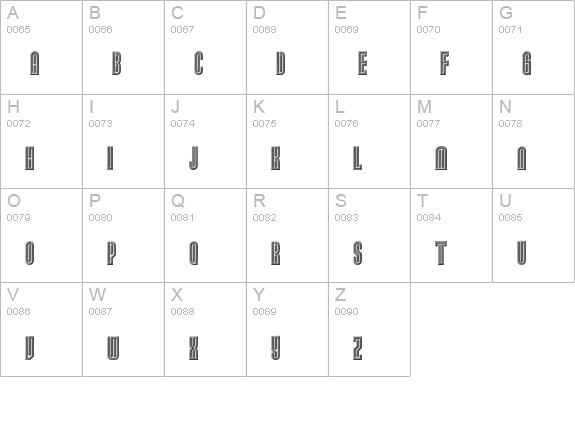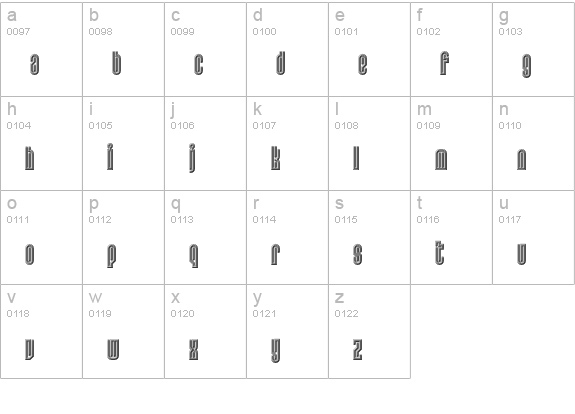
Lusta-OneSixtySans font is a modern and stylish typeface that exudes sophistication and elegance. With its sleek lines and contemporary design, this font is perfect for a wide range of design projects, from branding to editorial layouts. Its clean and minimalist aesthetic makes it versatile and easy to use in various contexts. The Lusta-OneSixtySans font is available for free download at FontsMarket.com, making it accessible to designers and creatives looking to elevate their projects with a touch of sophistication. Whether you're working on a logo, website, or print materials, this font is sure to make a statement and leave a lasting impression. Don't miss out on the opportunity to enhance your designs with the Lusta-OneSixtySans font today.